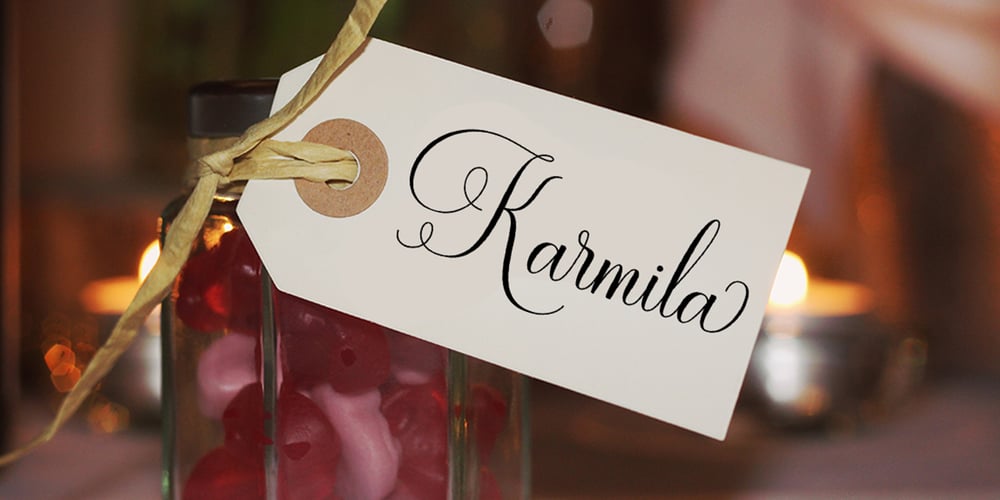
Ramolina Script Font Family was designed by M Akmal and published by Mega Type. Ramolina Script contains 1 styles and family package options. Ramolina Script is an elegant calligraphy script font that comes with lovely alternates character. a mixture of from copperplate calligraphy with handlettering style. Designed to convey style elegance. Ramolina is attractive like a smooth, elegant, clean, feminine, sensual, glamorous, simple and highly legible typeface. Its classic style is perfect to be applied in any type of formal pieces such invitations, labels, certificate, menus, Logos, fashion, make up, stationery, letterpress, romantic novels, magazines, books, greeting / wedding cards, packaging, badges etc. Ramolina Script features 400+ glyphs and 200+ alternative characters. including multiple language support. With OpenType features with stylistic alternates, ligatures and swash characters, that allows you to mix and match pairs of letters to fit your design. To enable the OpenType Stylistic alternates, you need a program that supports OpenType features such as Adobe Illustrator CS, Adobe Indesign & CorelDraw X6-X7, Microsoft Word 2010 or later versions. (Windows), Font Book (Mac) or a software program such as PopChar (for Windows and Mac). How to access all alternative characters using Adobe Illustrator: https://www.youtube.com/watch?v=XzwjMkbB-wQ How to use stylistic sets fonts in Microsoft Word 2010 or later versions: https://www.youtube.com/watch?v=NVJlZQ3EZU0 There are additional ways to access alternates / swashes, using the Character Map (Windows), Nexus Font (Windows) Font Book (Mac) or a software program such as PopChar (for Windows and Mac). How to access all the alternative characters, using the Windows Character Map with Photoshop: https://www.youtube.com/watch?v=Go9vacoYmBw If you need help or advice, please contact me by e-mail “megatype04@gmail.com” Thank you for your purchase & Happy Designing!